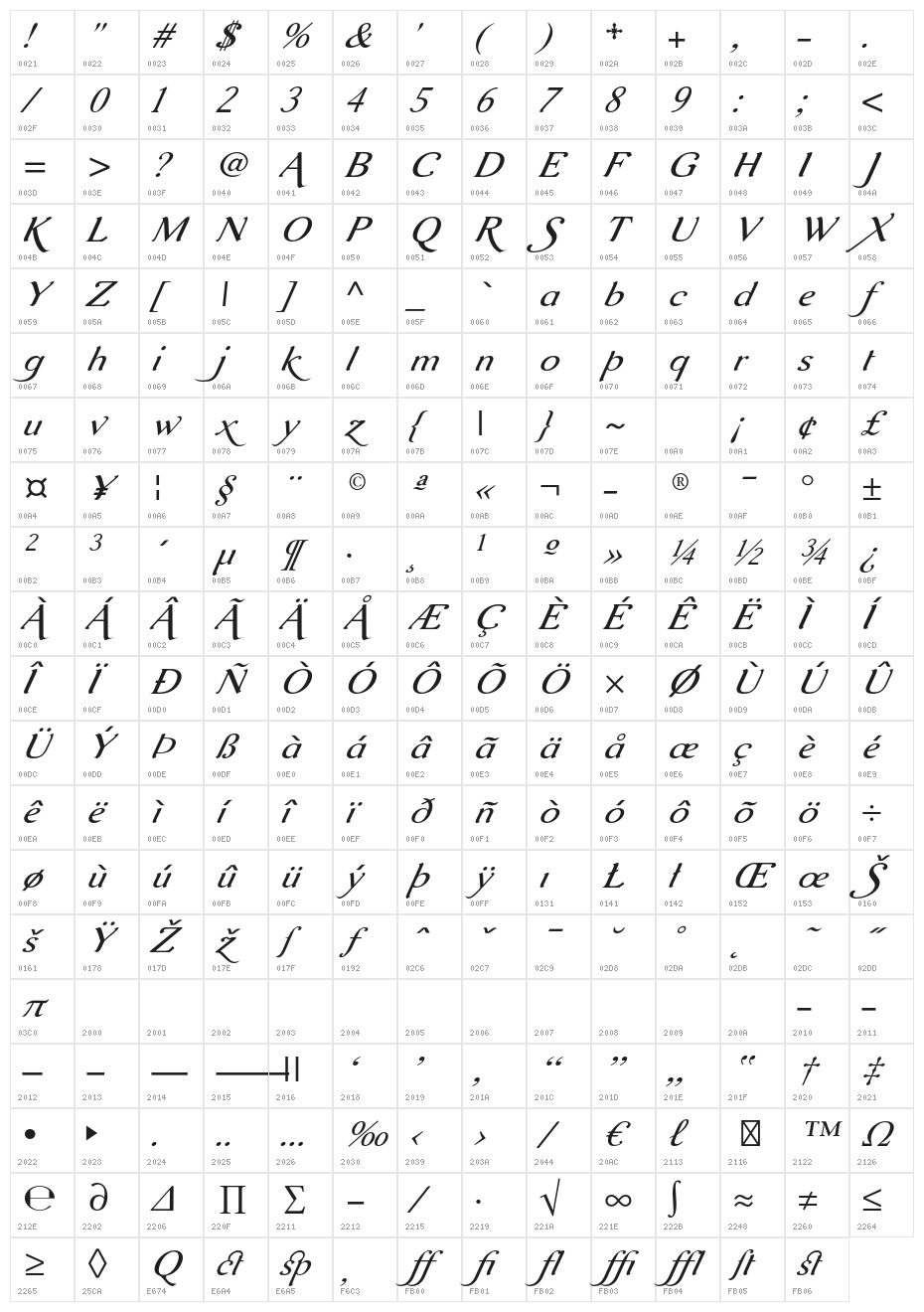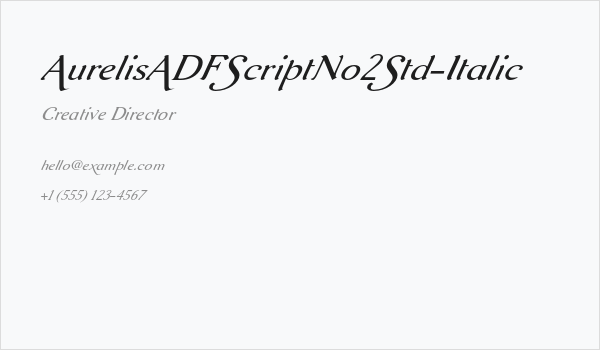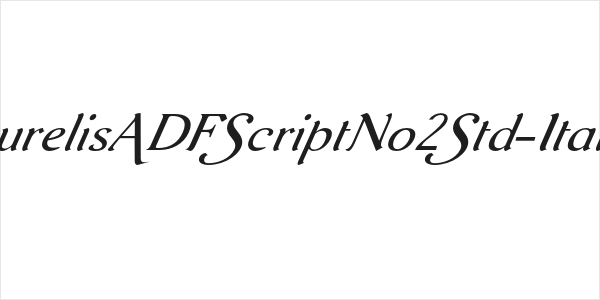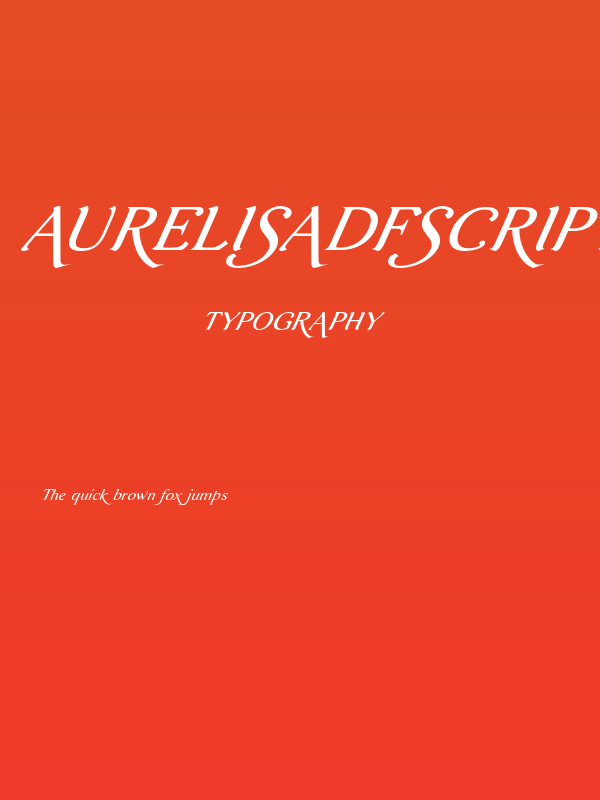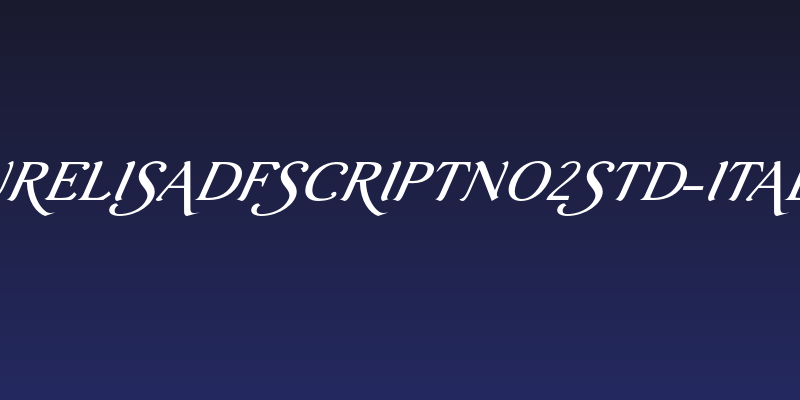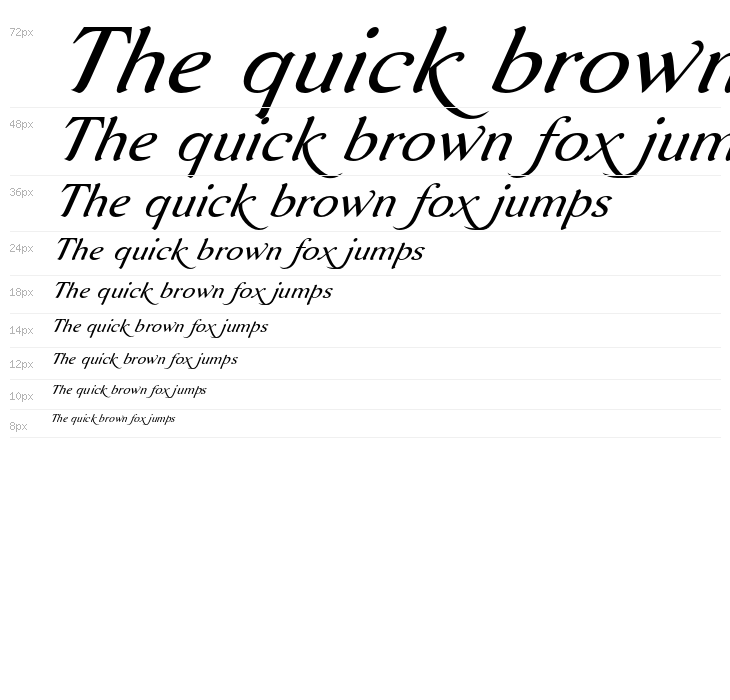
AurelisADFScriptNo2Std-Italic Font
AurelisADFScriptNo2Std-Italic Description
This elegant script font features a flowing, cursive style with a sophisticated flair. The characters are gracefully slanted, giving a sense of movement and fluidity. The uppercase letters are tall and refined, while the lowercase letters maintain a consistent rhythm with smooth curves and delicate strokes. The numerals are stylishly integrated, matching the overall aesthetic. Special characters are thoughtfully designed, enhancing the font's versatility. The font's italic nature adds a touch of formality and elegance, making it suitable for a variety of creative applications.
| Overall Style | Elegant, Formal |
| Use Case | Headlines, Invitations, Branding |
| Proposed Projects | Ideal for wedding invitations, elegant branding, greeting cards, and formal event programs. |